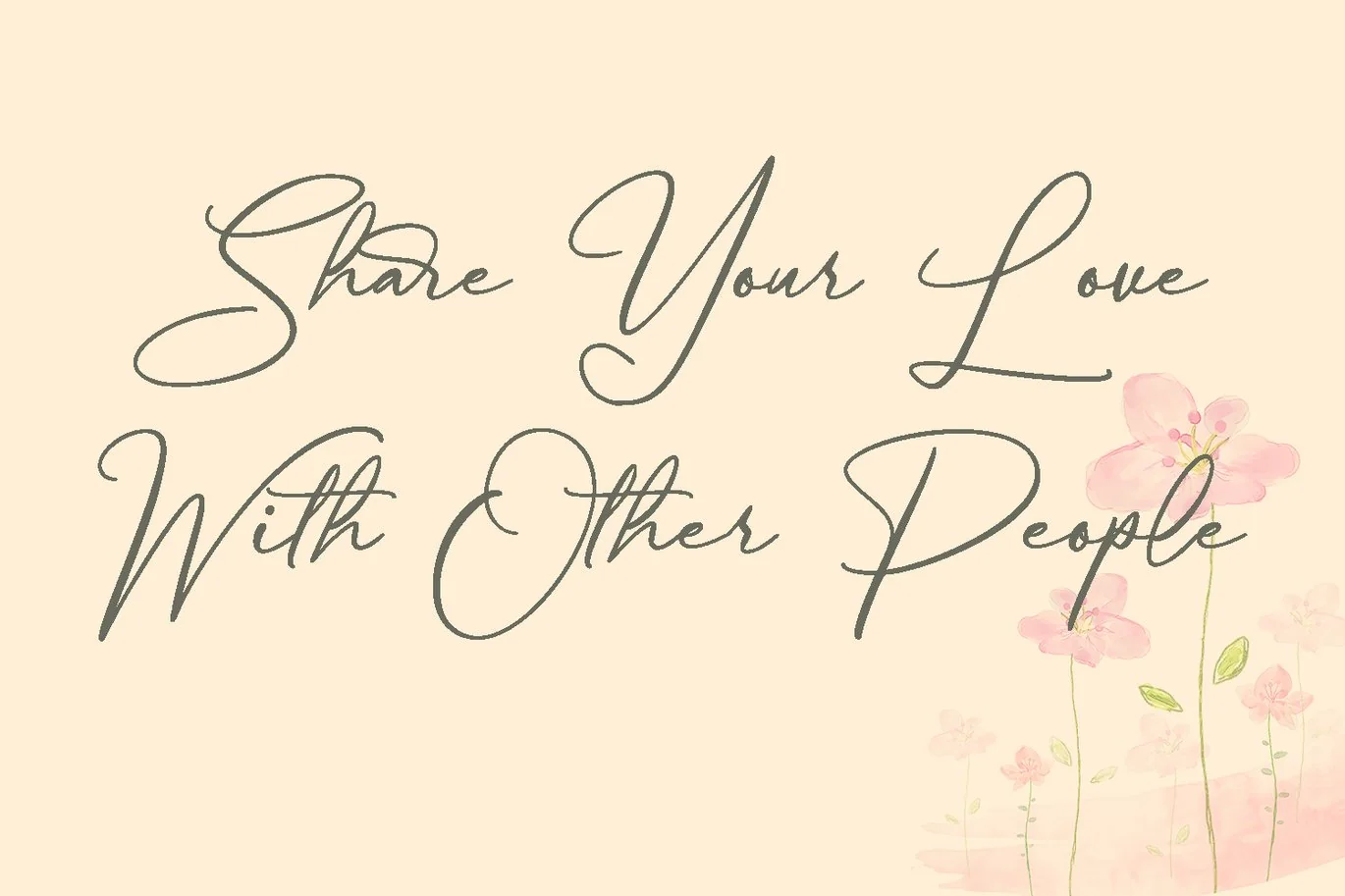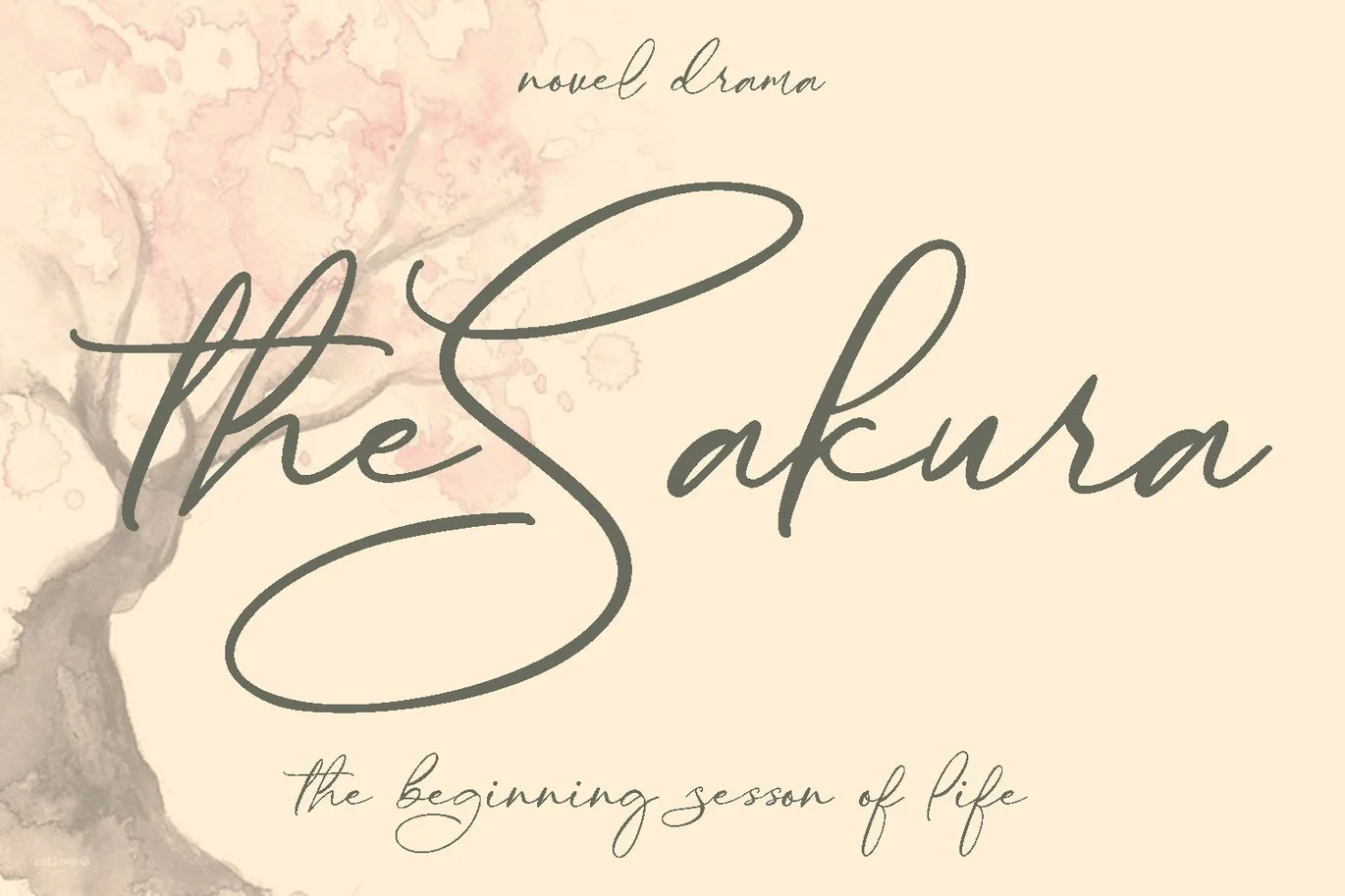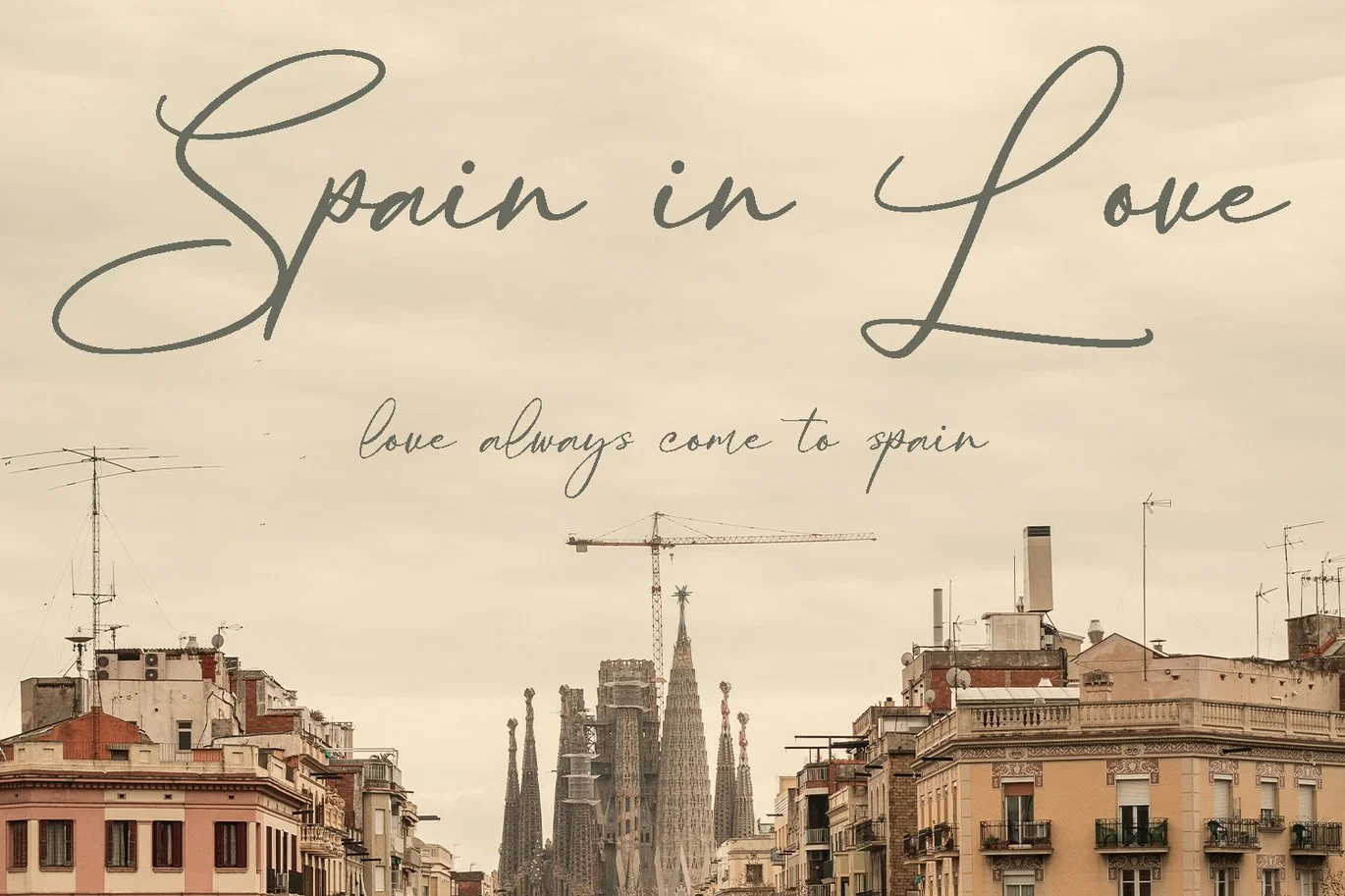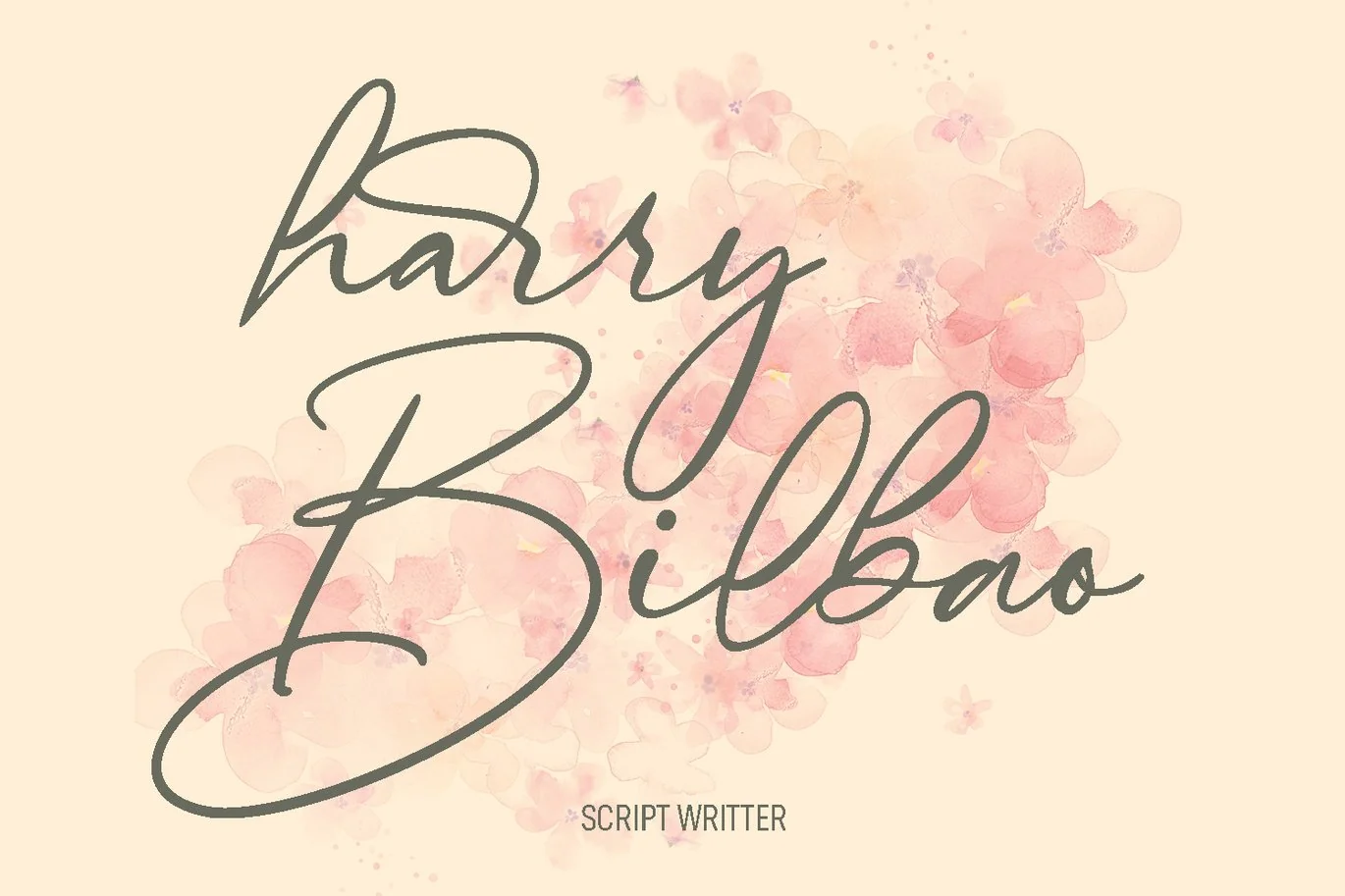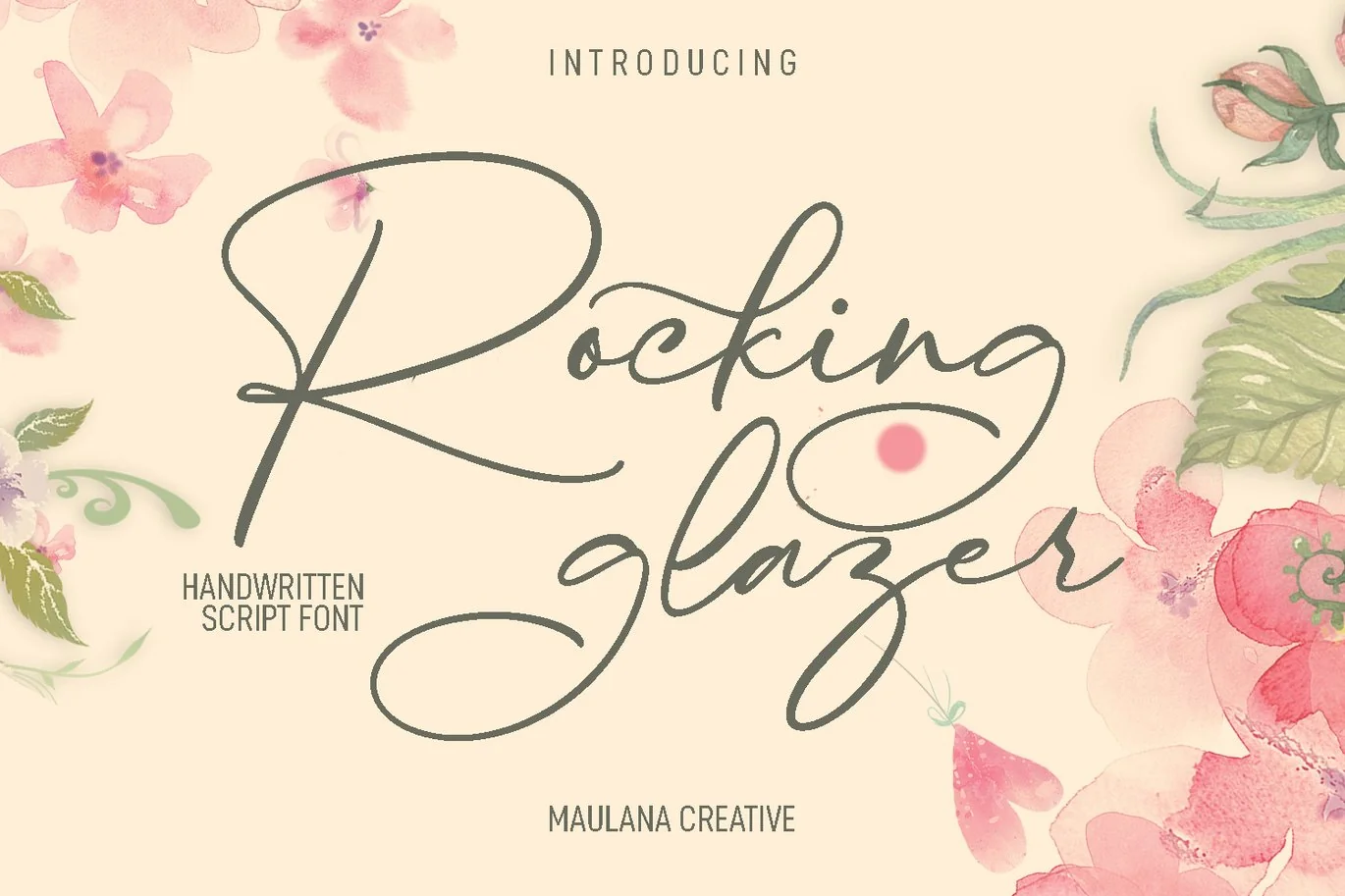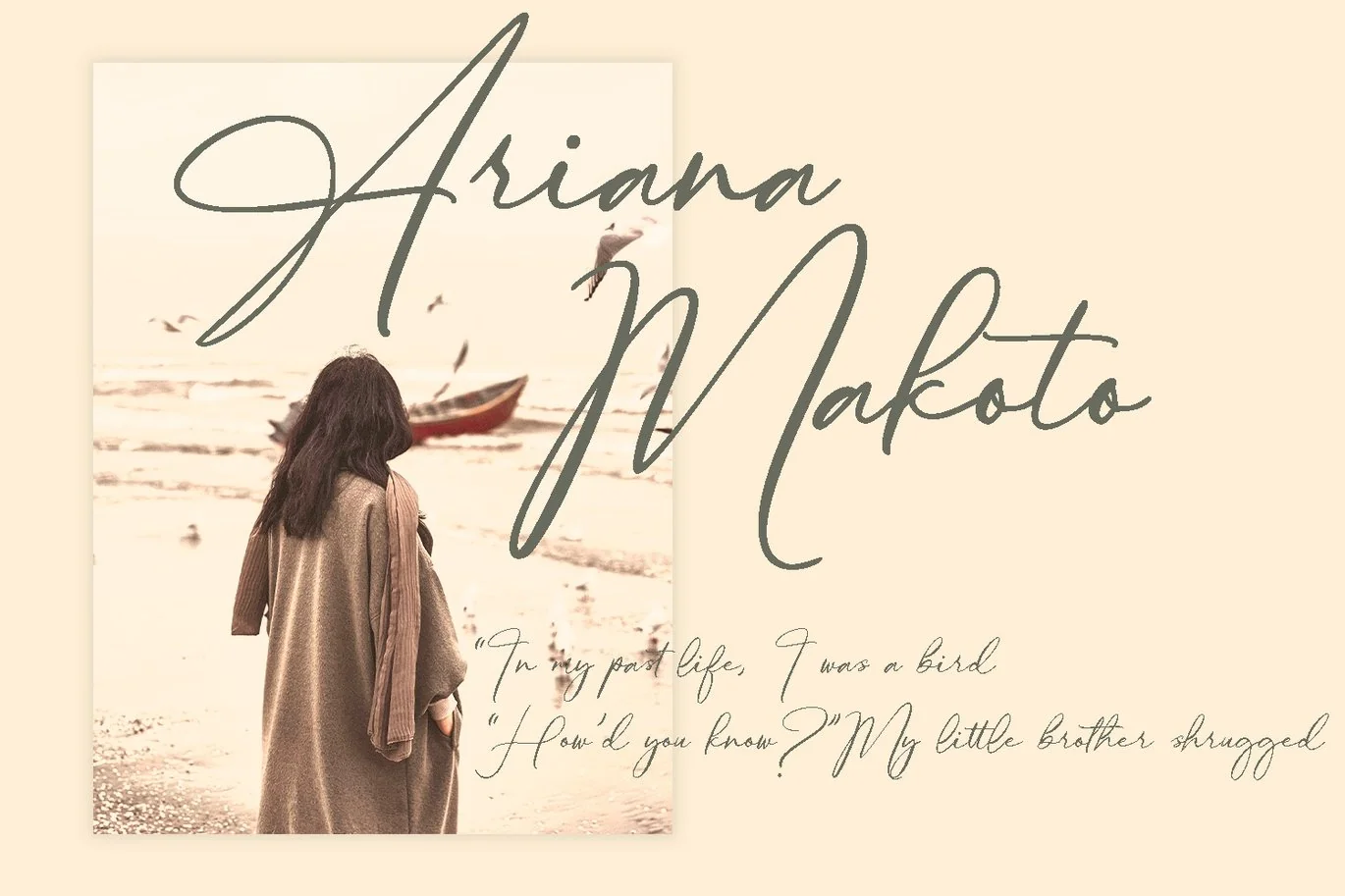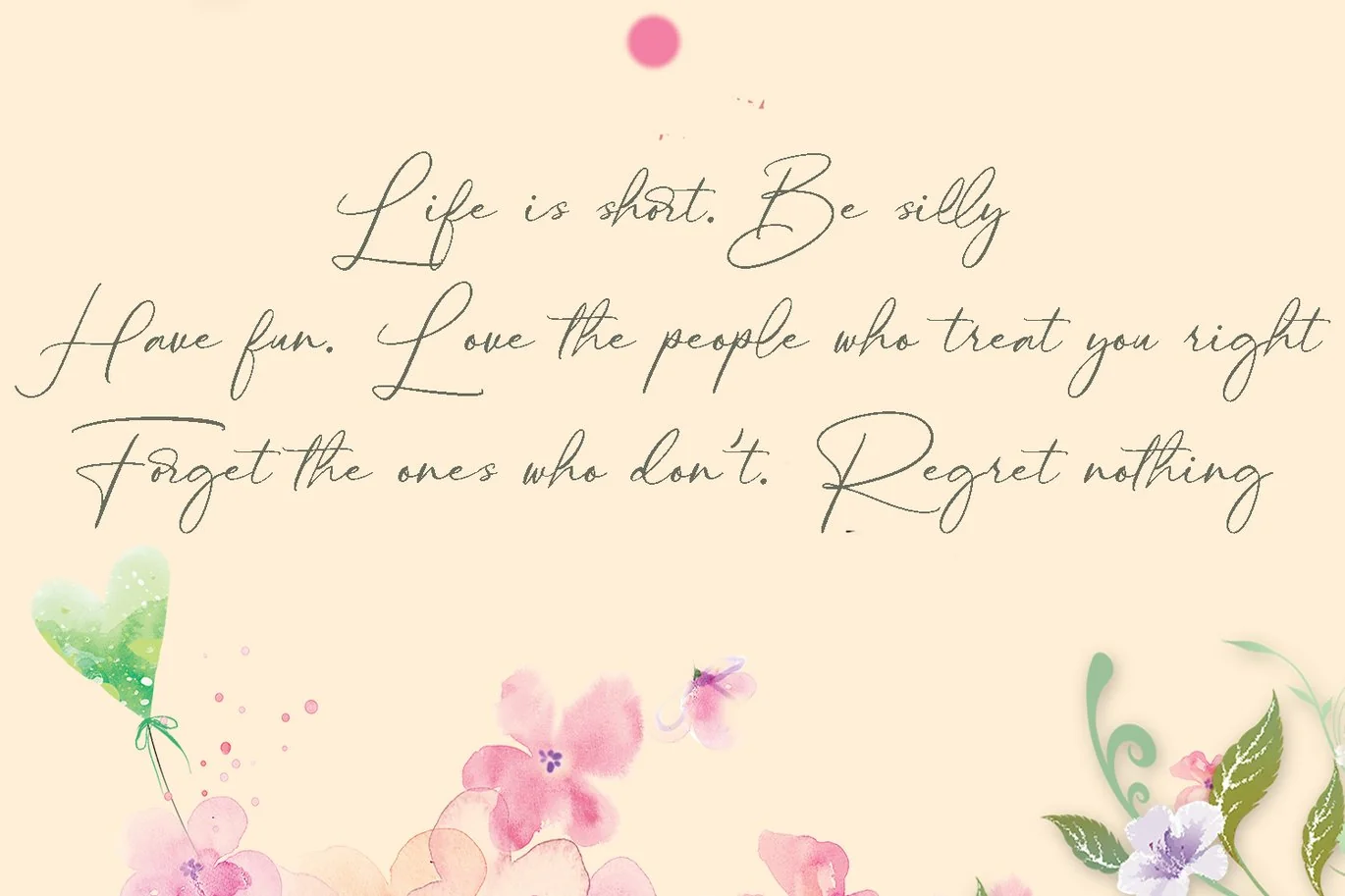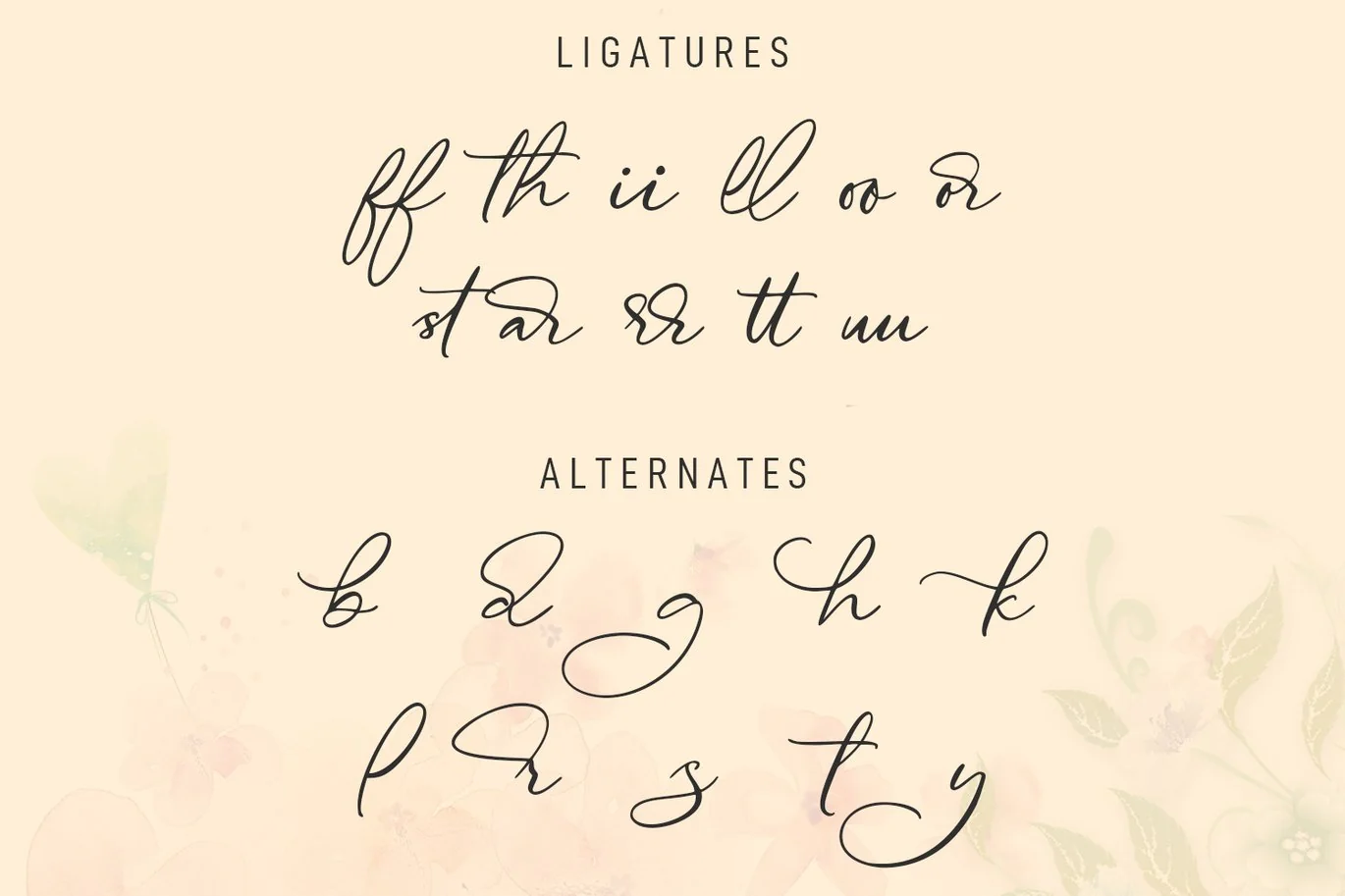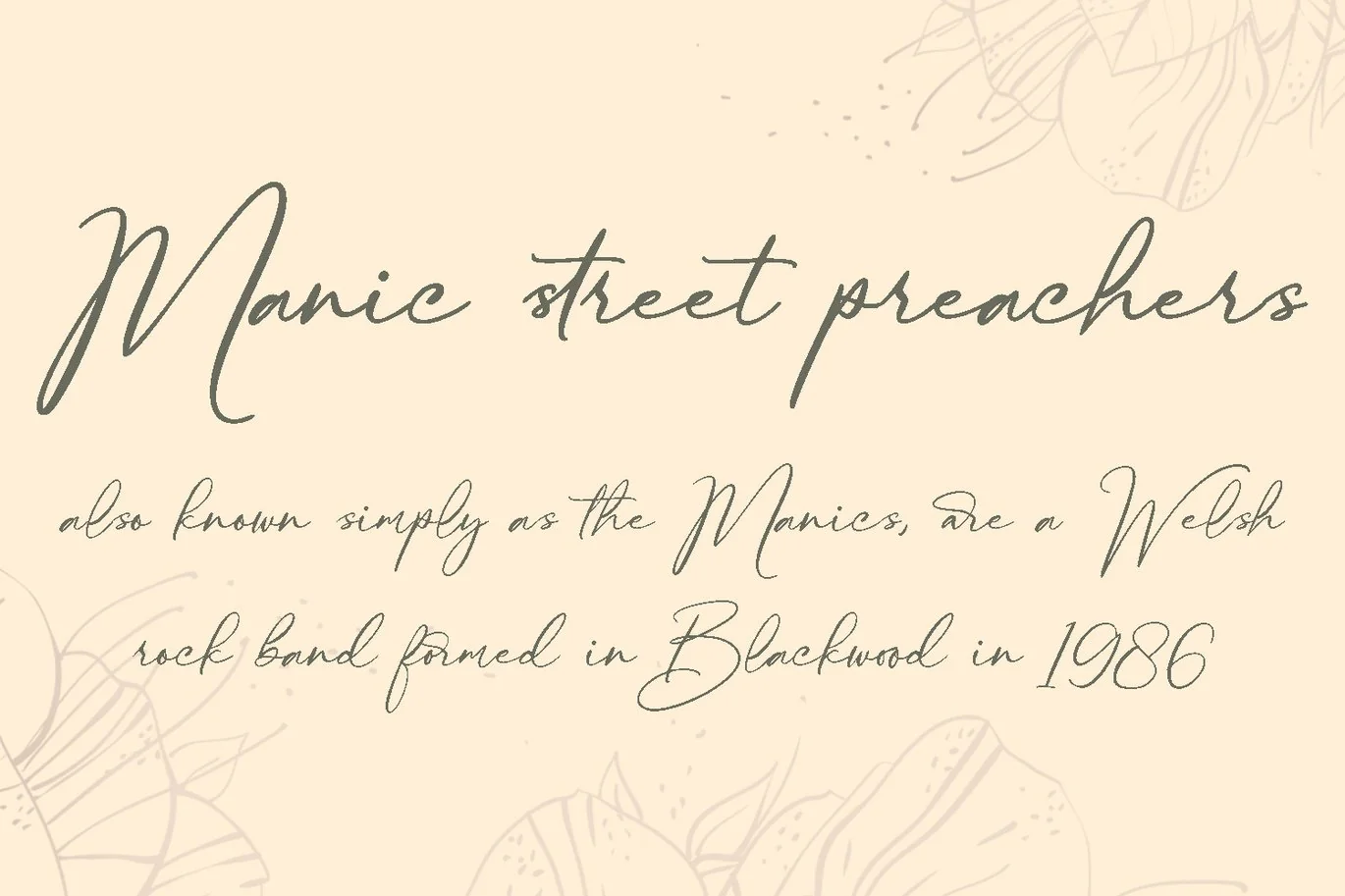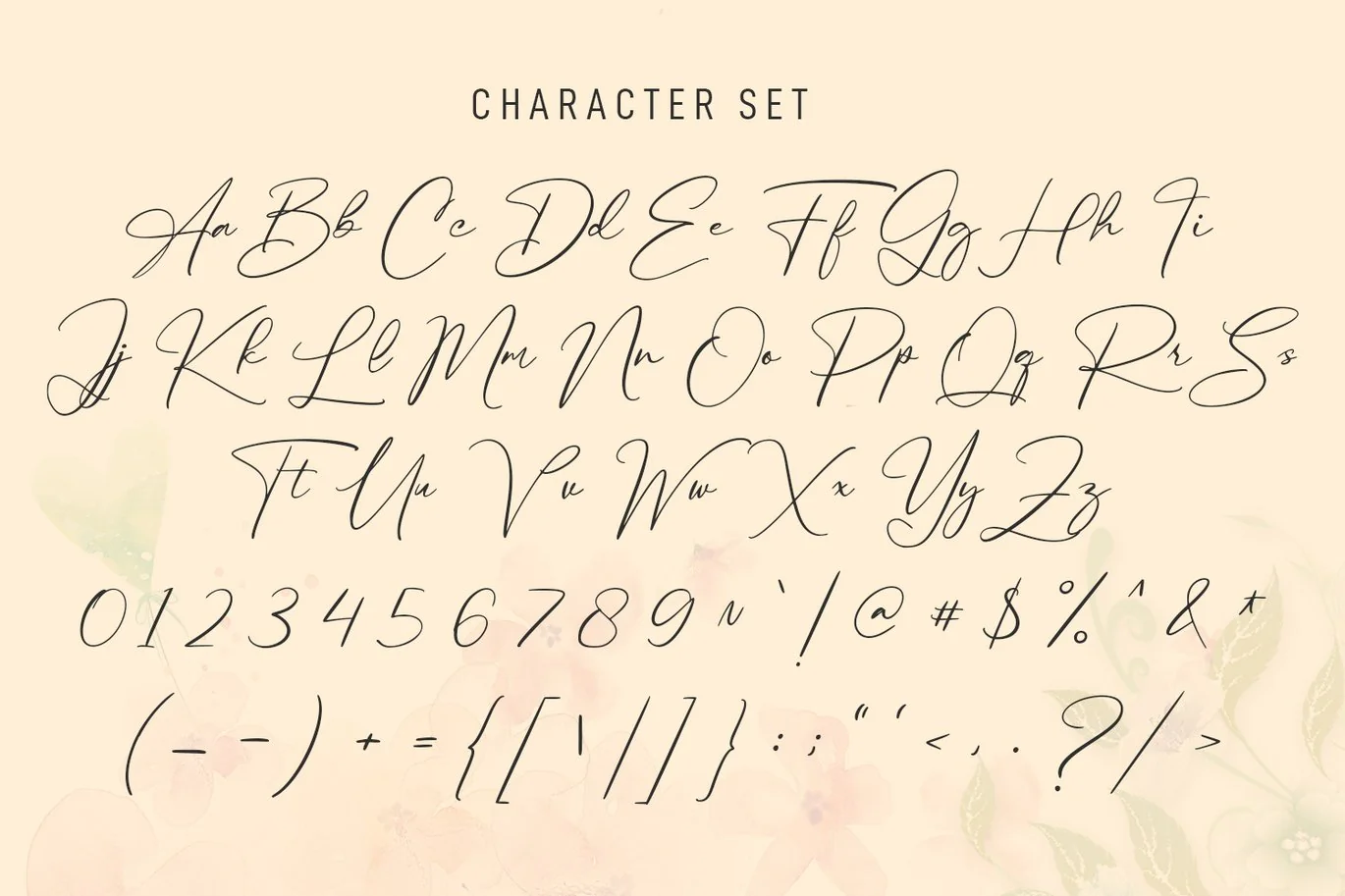
Rocking Glazer Script Font
Rocking Glazer is an expressive handwritten script font. With light contrast stroke, fun character with a bit of ligatures and alternates. To give you an extra creative work. Rocking Glazer font support multilingual more than 100+ language. This font is good for logo design, Social media, Movie Titles, Books Titles, a short text even a long text letter and good for your secondary text font with sans or serif. Make a stunning work with Affectus font.